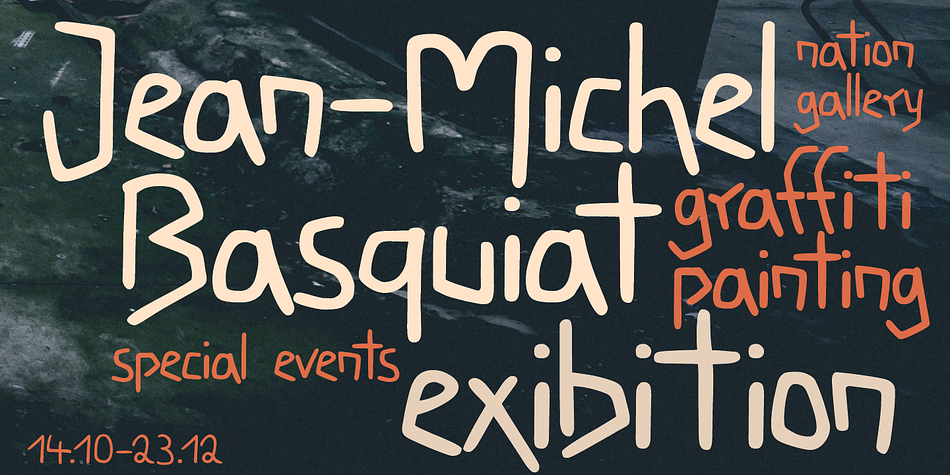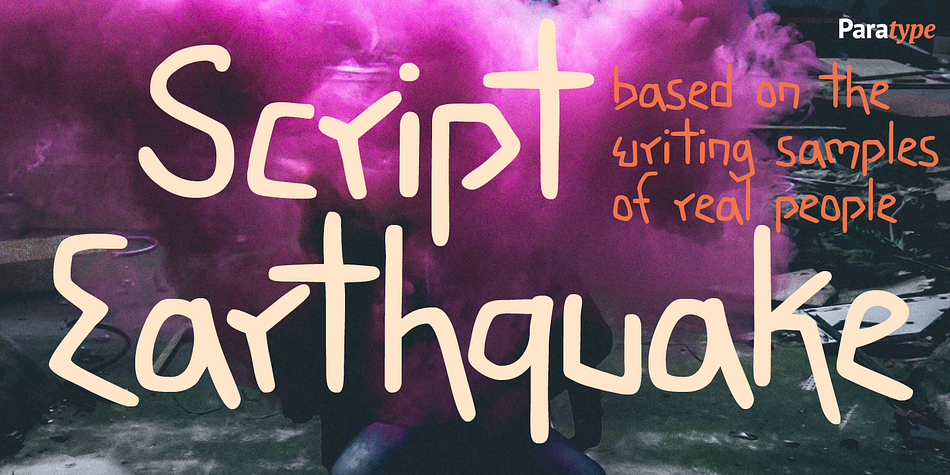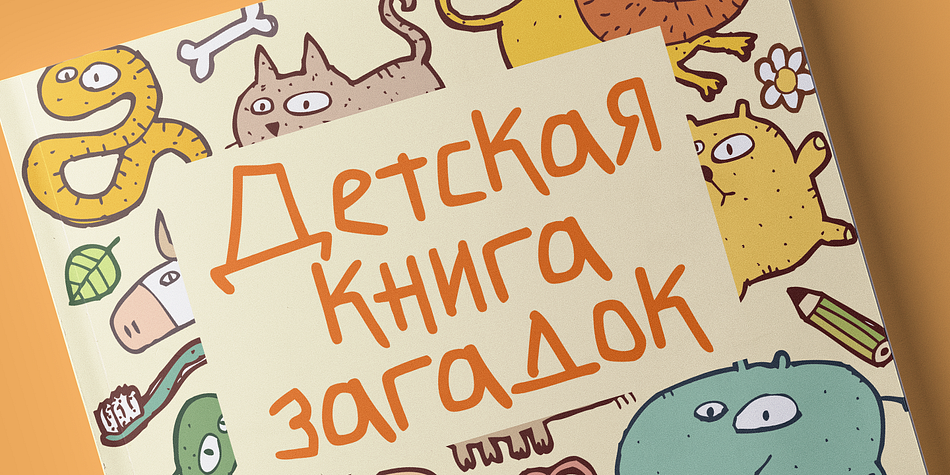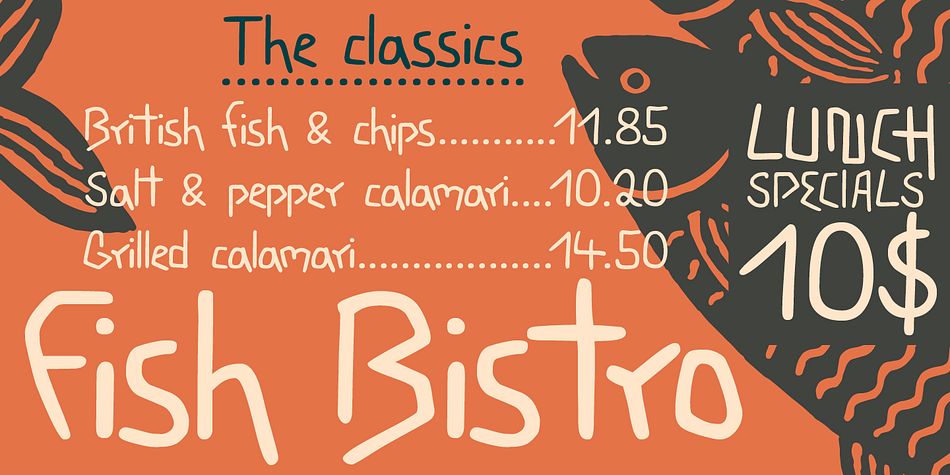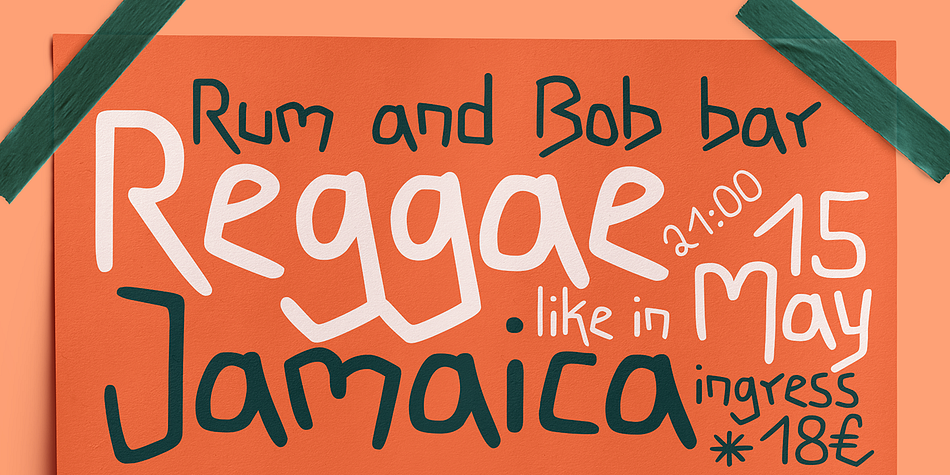
Designed by Gennady Fridman, Script Earthquake is a hand drawn font published by ParaType.
Script Earthquake was developed for the series of handwriting fonts based on the writing samples of real people. The font delivers natural sincere touch and can magically convert any annoying advertising text into intimate advice of your good friend. The first version of the font in Latin was released in 1998. It was extended by Cyrillic (designer Gennady Fridman) and rereleased in 2009.